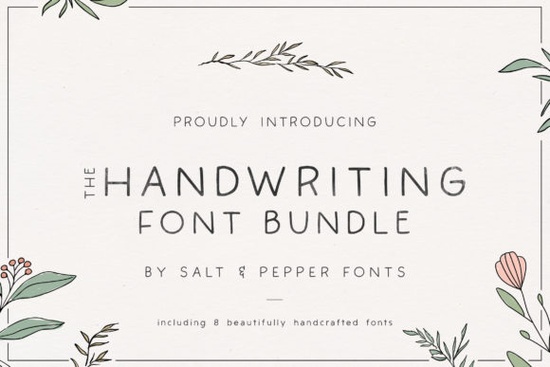
Adding a personal touch to digital projects can be difficult when everything looks too perfect. Handwritten typefaces solve this by bringing warmth and authenticity to logos, invitations, and social media graphics. If you are looking for variety, The Handwriting Bundle Font offers eight unique styles that mimic real pen strokes. This collection is designed for creators who want a handmade feel without needing to letter everything by hand.
How to Pair Handwriting with Other Styles?
Using script fonts alone can sometimes make text hard to read, especially in long paragraphs. The best approach is to pair these handwritten styles with cleaner, structured typefaces. For example, you might use a bold script for a headline and a simple sans serif for the body text. If you need structured sans serif styles to balance out the curves, looking at complementary collections can help create a professional hierarchy.
Contrast is key when mixing fonts. A messy or casual handwriting font works well against a geometric sans serif. This combination keeps the design interesting but still legible. When designing for print-on-demand products like t-shirts or mugs, ensure the handwriting font is large enough to be read from a distance. Small details in script fonts can get lost during printing if the size is too reduced.
What Are the Best Use Cases for This Bundle?
These eight fonts are versatile enough for various commercial and personal projects. Small business owners often use them for branding elements like logos and packaging labels. The handmade aesthetic suggests care and quality, which appeals to customers buying artisanal goods. Social media managers also benefit from having multiple styles in one pack, allowing them to vary their story highlights or post headers without looking repetitive.
Wedding and event planners frequently seek out this type of typography for invitations and signage. The natural variation in the strokes mimics calligraphy, which adds elegance to formal stationery. You can view this collection of scripts to see how different weights and slants might fit your specific theme. Having eight options means you are not limited to just one look for an entire brand or event series.
For those interested in purchasing the full set, you can find The Handwriting Bundle Font on the marketplace. It is always wise to check the license terms before using fonts for commercial goods. Most bundles allow for unlimited end products, but verifying the specific agreement ensures you stay compliant when selling items.
Design Tips for Better Results
To get the most out of these typefaces, consider the spacing between letters. Handwriting fonts often need adjusted tracking to look natural. Avoid using all caps with script fonts unless the style specifically supports it, as it can break the flow of the letters. Also, think about color contrast. A thin handwriting font might disappear against a busy background, so use solid colors or overlays to make the text pop.
Testing your design on different devices is another crucial step. What looks good on a computer monitor might look different on a mobile screen. Always preview your work as a customer would see it. If you are creating physical products, print a test copy to check the ink coverage and clarity of the finer strokes.
Before you start your next project, run through this quick checklist to ensure your typography is ready:
- Install the font files on your primary design device.
- Check the license for commercial use permissions.
- Pair the script with a simple sans serif for body text.
- Adjust letter spacing to improve readability.
- Preview the design on mobile and print a test copy.
- Save a version with outlined text for sharing with printers.
Taking these steps helps avoid common pitfalls and ensures your final product looks professional. With the right tools and a bit of attention to detail, you can create designs that feel personal and engaging.